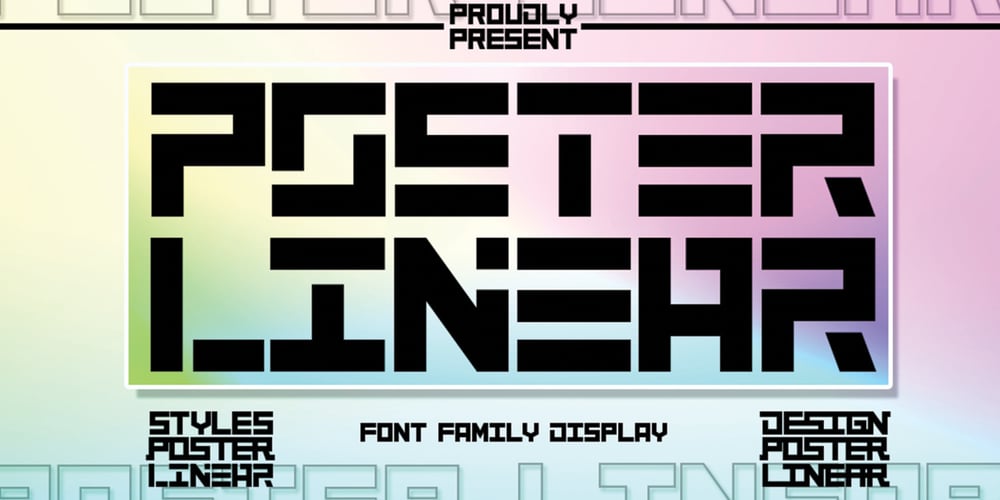
Poster Linear Font Family was designed by Ibram Syah and published by Jehansyah. Poster Linear contains 6 styles and family package options. Poster Linear Natural sans serif font is simple but looks very futuristic and very stylish, it adds to your confidence to make your designs look bolder and modern. Perfect for stickers, media posts, social media statuses, magazines, books, covers, game covers, banners, wall magazines, sports shades, and more, plus a few families you can incorporate into your designs.